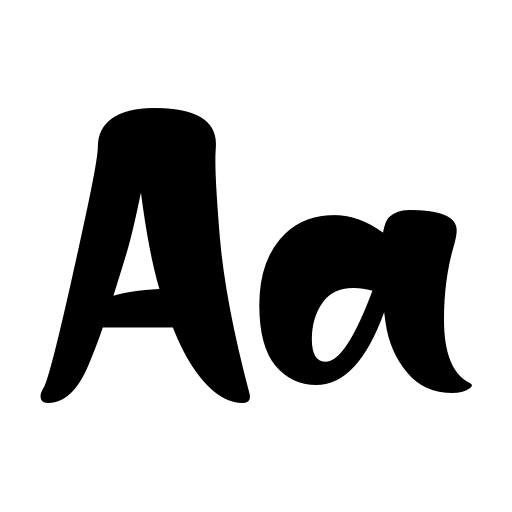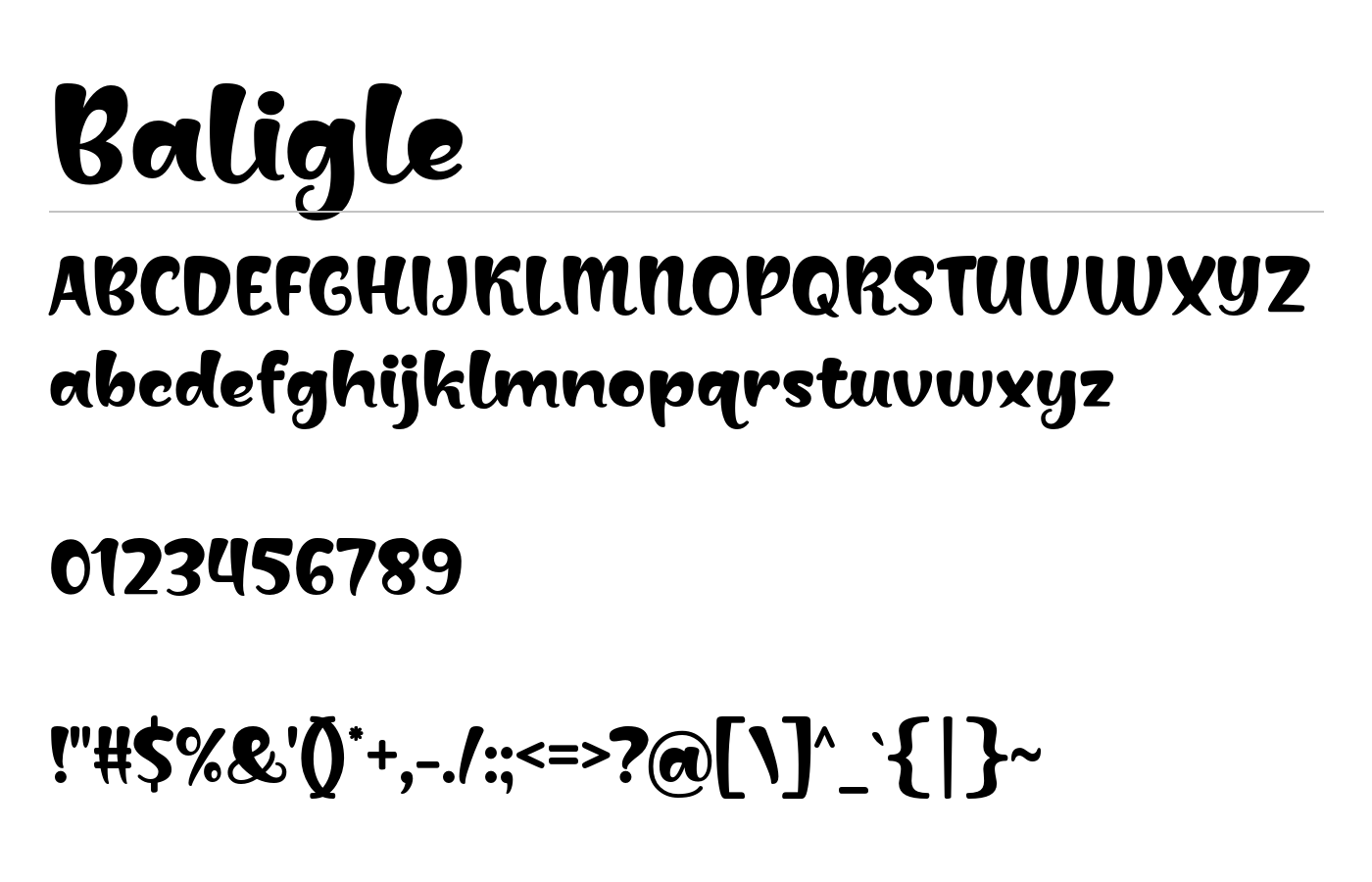
Baligle is a playful, bold script font with rounded, slightly irregular letterforms that convey a friendly, casual vibe. Its chunky strokes and smooth curves make it ideal for fun branding, headlines, and creative projects needing an approachable yet distinctive style. This font works well for logos, packaging, and any design seeking a warm, inviting personality.
Baligle Font